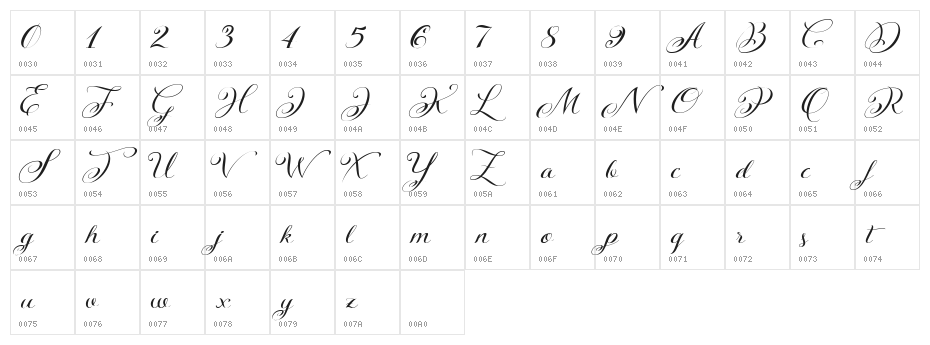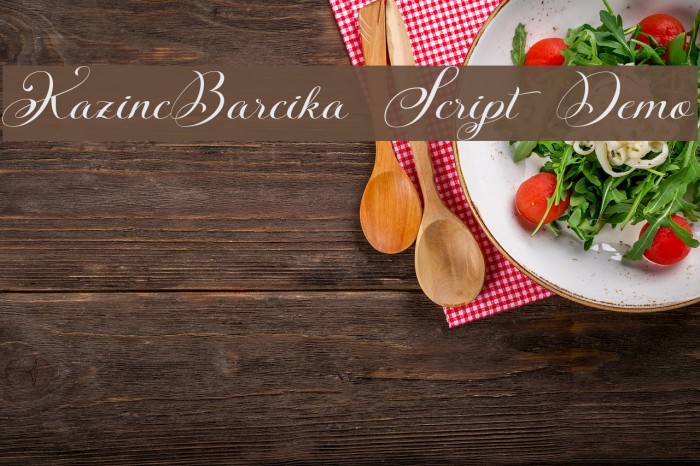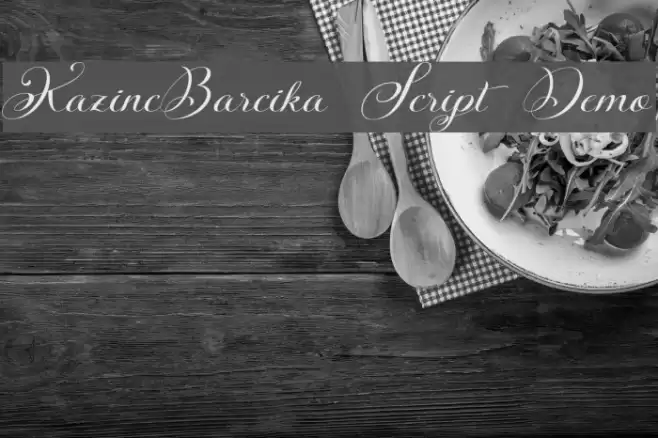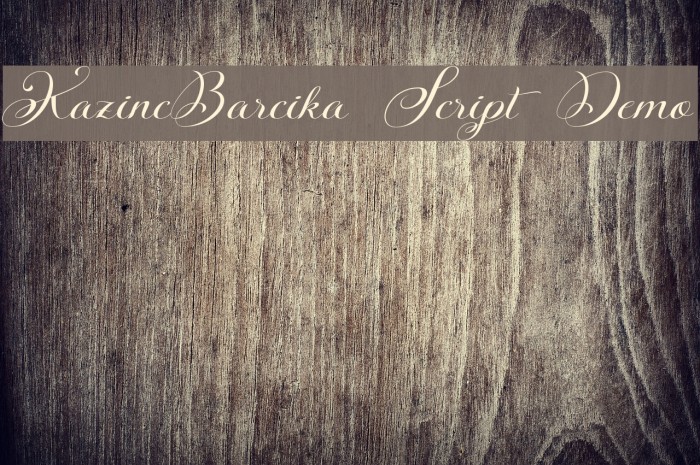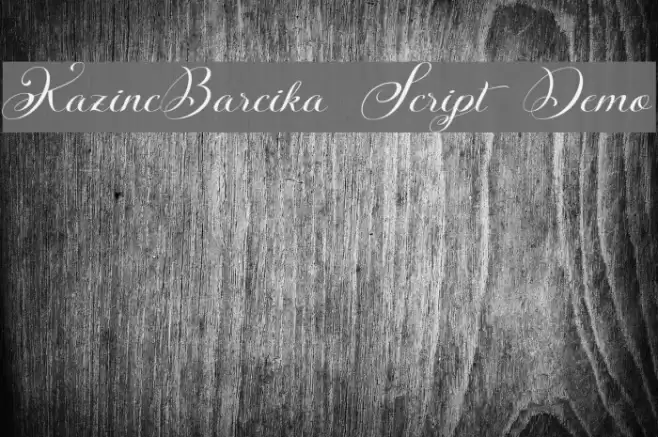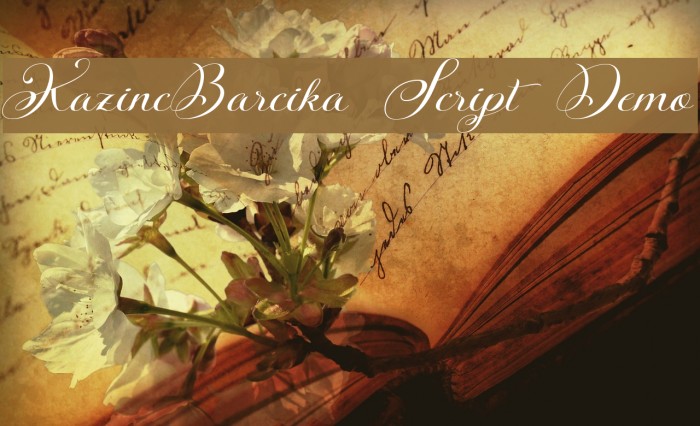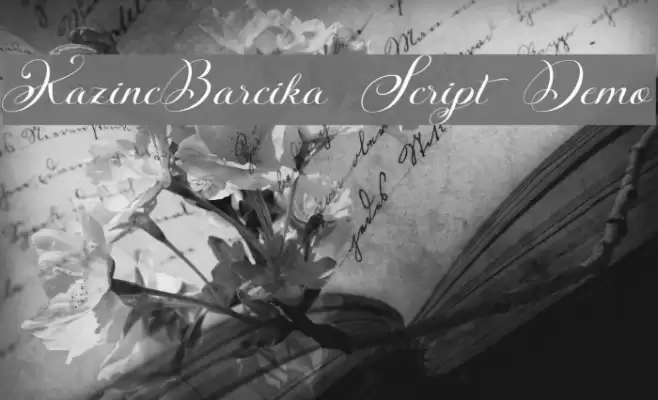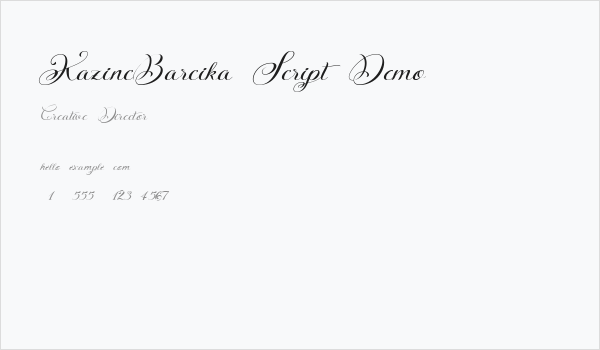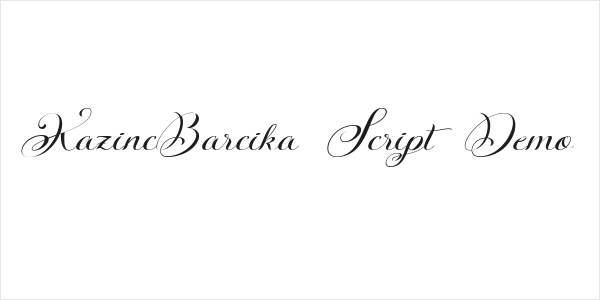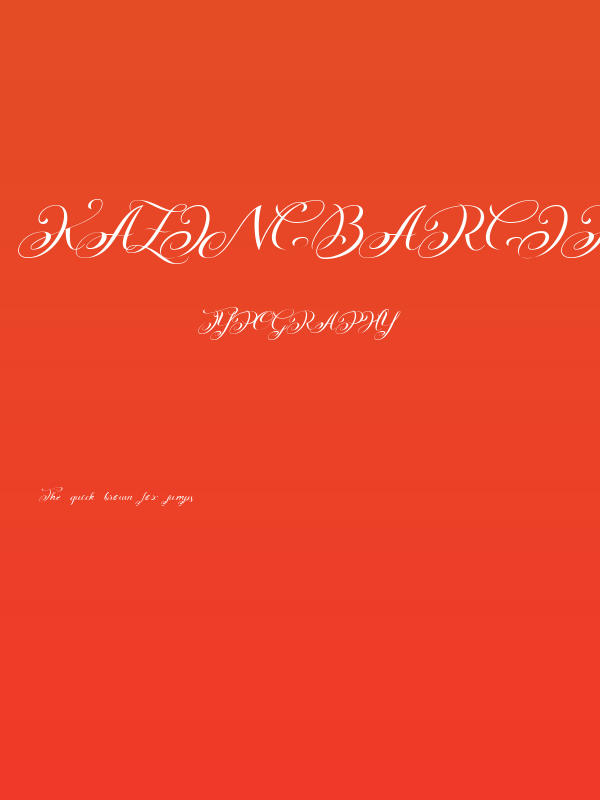
KazincBarcika Script Demo Font
KazincBarcika Script Demo Description
This elegant script font features intricate, flowing letterforms with elaborate swashes and flourishes. The uppercase letters are particularly ornate, with extended loops and curves that give a sense of movement and grace. The lowercase letters maintain a more restrained elegance, complementing the uppercase with their smooth, connected strokes. Numbers are styled consistently with the alphabet, featuring similar decorative elements. The font exudes a sense of sophistication and is well-suited for formal occasions or high-end branding. Its delicate lines and high contrast between thick and thin strokes add to its refined appearance.
| Proposed Projects | Ideal for wedding invitations, luxury branding, elegant packaging, and formal event programs. |